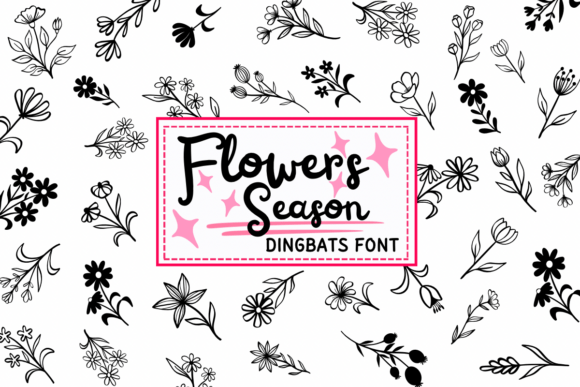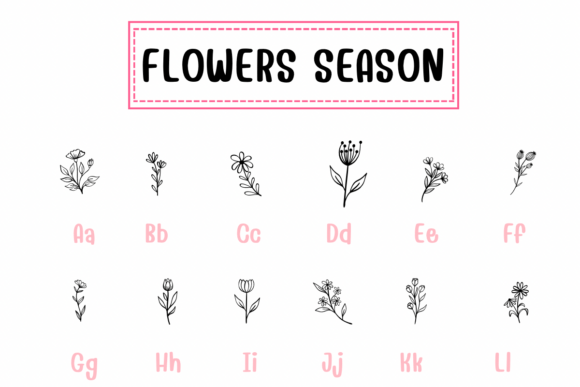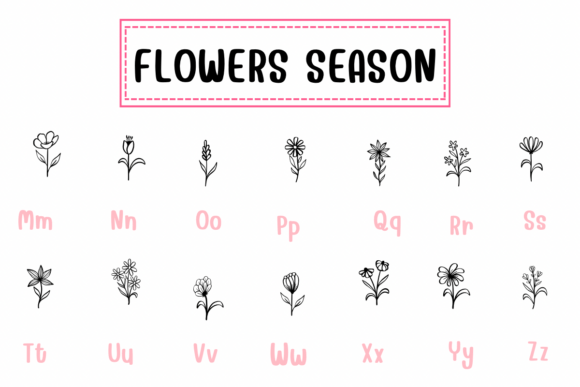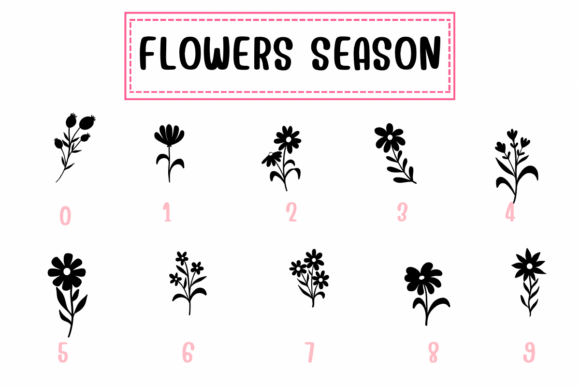
Flowers Season Font: Hand-Drawn Floral Dingbats for Cricut & Crafts
About the Flowers Season Font
Discover the charm of Flowers Season Font. This font is a perfect blend of modern aesthetics and classic appeal. Flowers Season
is a joyful dingbats font filled with hand-drawn floral elements perfect for creative decoration. This charming set includes a wide variety of whimsical flower illustrations that can be used as standalone graphics or accents in your designs. Ideal for greeting cards, seasonal posters, scrapbooking, and crafting, Flowers Season adds a fresh and cheerful vibe to every project.
Flowers Season’s playful, hand-drawn aesthetic makes it ideal for projects requiring a lighthearted and charming touch, such as branding for artisanal businesses, children’s products, or seasonal marketing materials. It excels in headlines, short text sections, and decorative elements within larger designs, adding visual interest to packaging or website accents. However, its whimsical nature isn’t suited for large blocks of body text or user interfaces where legibility is paramount.
Pairing Flowers Season effectively requires a contrasting typeface to maintain balance. A clean sans-serif like Open Sans or Lato would provide a modern counterpoint, allowing the floral elements to shine. For a more vintage feel, consider pairing it with a classic serif font such as Garamond or Playfair Display.
The font’s overall personality is cheerful and whimsical, conveying a sense of handmade charm and approachability.